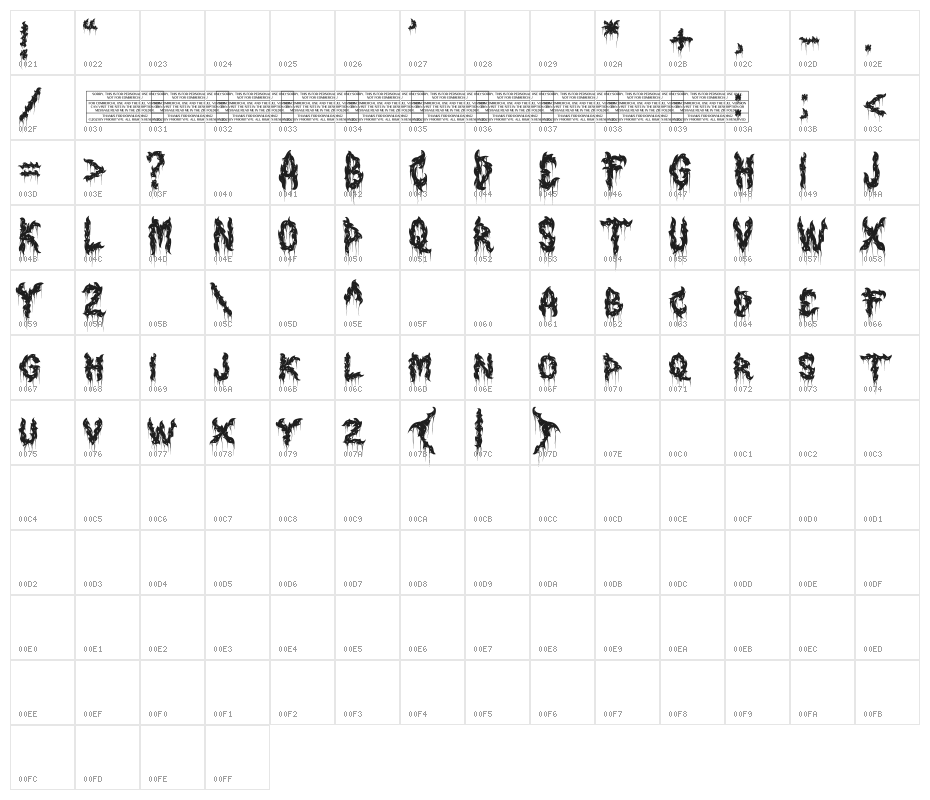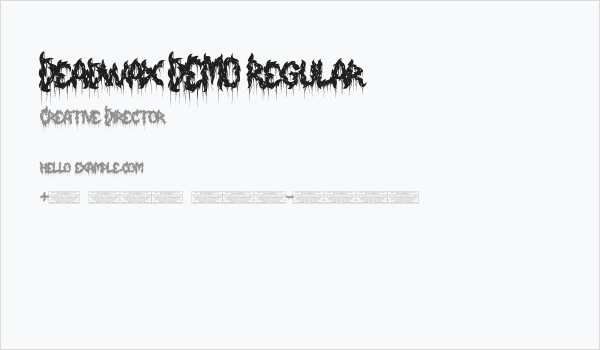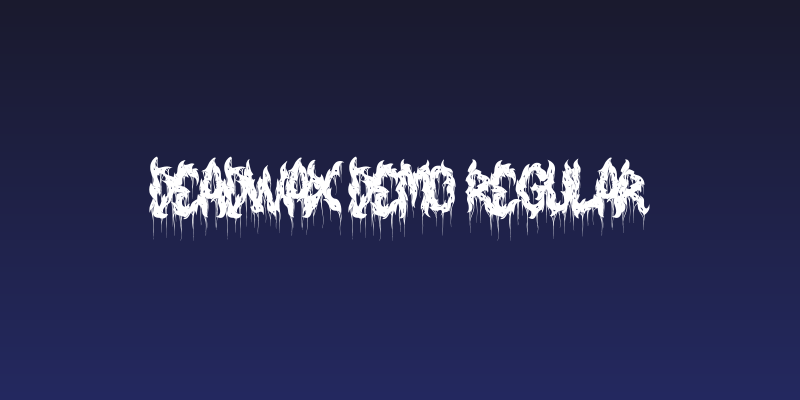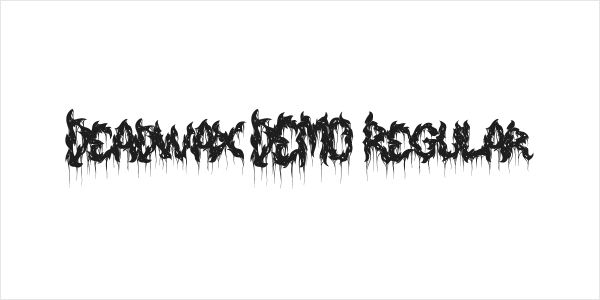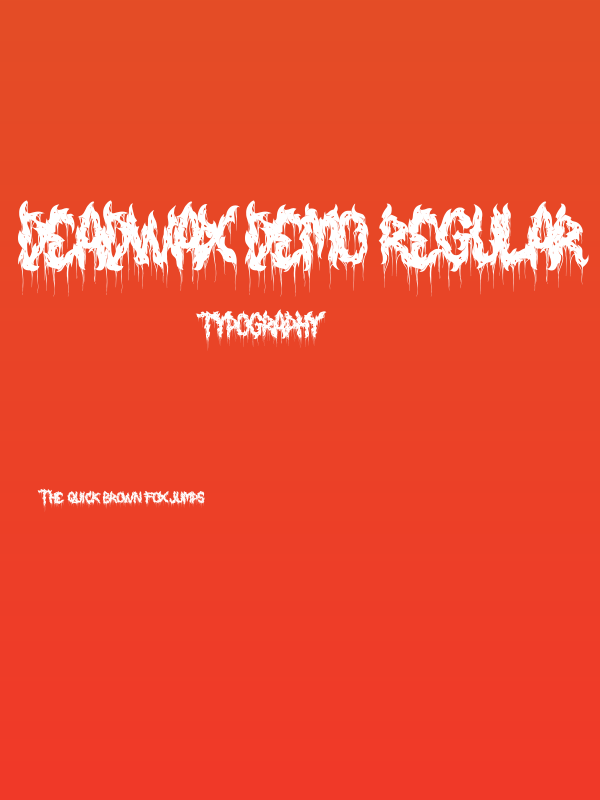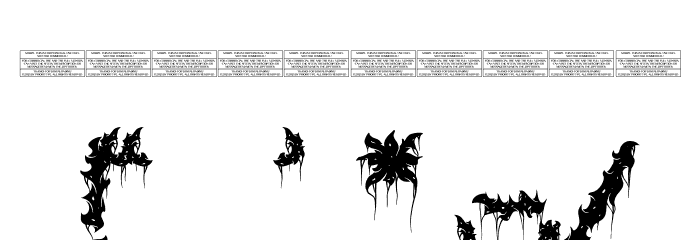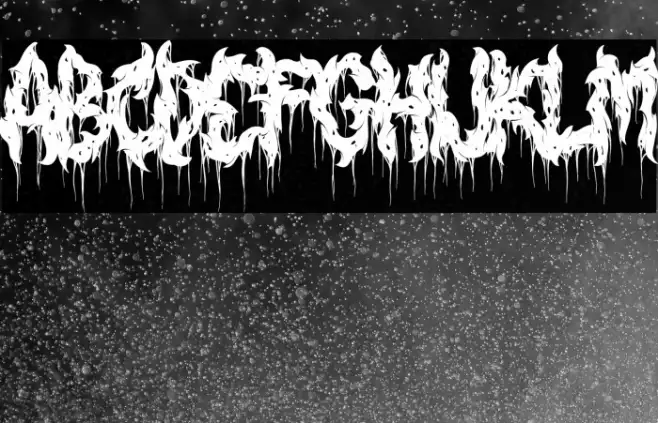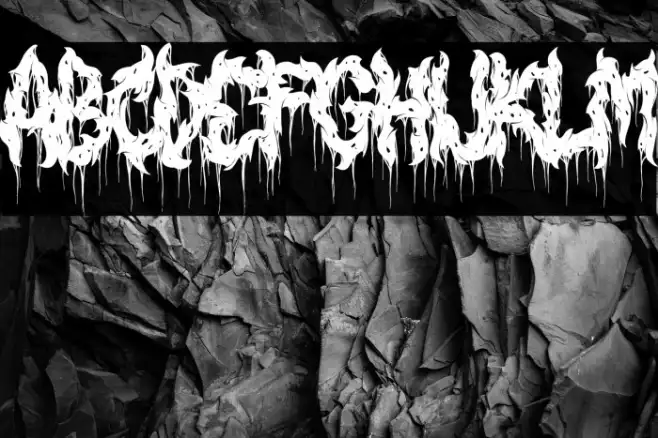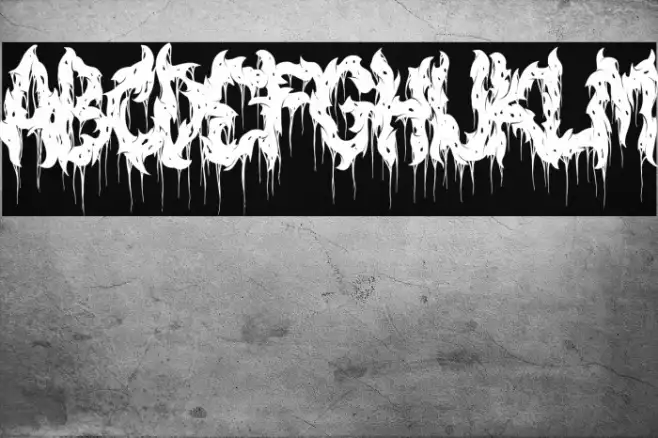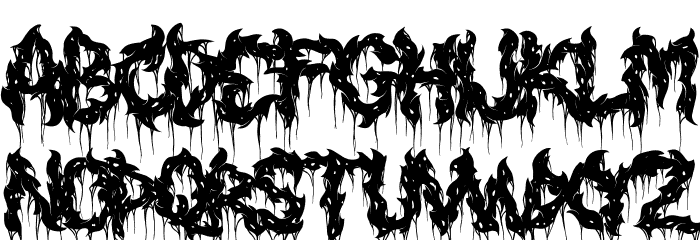
Deadwax DEMO Regular Font
Deadwax DEMO Regular Description
This font features a highly decorative and dramatic style, reminiscent of dripping paint or melting wax. The characters are bold and heavily stylized, with an organic, flowing appearance that suggests movement and fluidity. Each letter is unique, with intricate details that create a sense of chaos and energy. The font's design is striking and eye-catching, making it ideal for projects that require a strong visual impact. Its unconventional and artistic nature makes it suitable for creative and experimental designs.
| Use Case | Logos, Posters, Artistic projects |
| Proposed Projects | Album covers, horror movie posters, Halloween-themed events, edgy fashion branding, and artistic projects. |